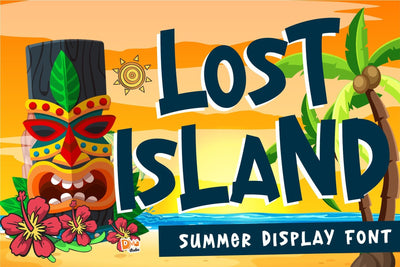
Lost Island
Lost Island – Summer Display Font
Lost Island is a bold and breezy summer display font that captures the carefree spirit of tropical getaways. With its chunky shapes, playful curves, and sun-soaked vibe, this font is perfect for eye-catching headlines, beach-themed designs, and anything that needs a splash of warm, adventurous energy.
Tropical Vibe: Bold display style inspired by summer adventures and island escapes.
Eye-Catching Curves: Rounded, playful letterforms that stand out in any design.
All-Caps Design: Strong uppercase characters ideal for impactful titles and signage.
Ideal For: Travel posters, beach party invites, summer product packaging, social media graphics, and tropical branding.